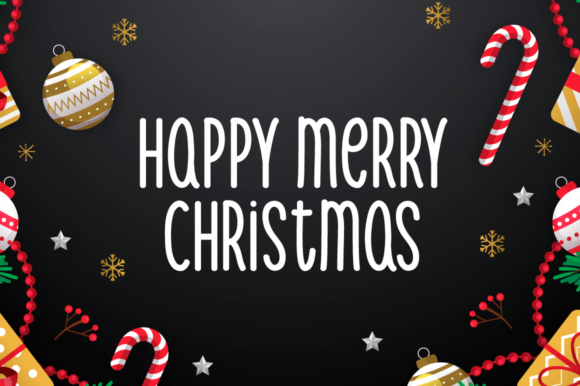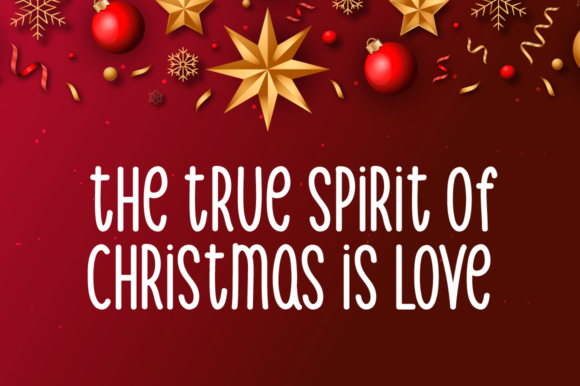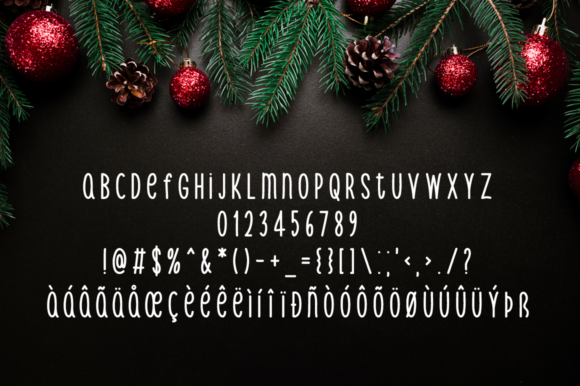
Deck the Halls with the Festive Christmas Tree Font
Are you looking for a font that captures the essence of the holiday season? Look no further than the Christmas Tree Font! This simple and neat handwritten font is perfect for adding a touch of festive cheer to your designs. In this article, we’ll explore the features and benefits of the Christmas Tree Font, and how you can use it to make your Christmas holiday one to remember.
What is the Christmas Tree Font?
The Christmas Tree Font is a beautiful handwritten font that is inspired by the magic of the holiday season. Its simple and neat design makes it perfect for a wide range of applications, from stationery and logos to t-shirts and print designs. The font is easy to read and has a friendly, approachable feel that is sure to put a smile on your face.
Features of the Christmas Tree Font
- Simple and Neat Design: The Christmas Tree Font has a clean and simple design that makes it easy to read and use in a variety of contexts.
- Handwritten Style: The font has a friendly, handwritten style that adds a personal touch to your designs.
- Versatile: The Christmas Tree Font is perfect for a wide range of applications, including stationery, logos, t-shirts, print designs, website headers, flyers, and more.
Benefits of Using the Christmas Tree Font
There are many benefits to using the Christmas Tree Font in your designs. Here are just a few:
- Adds a Touch of Festive Cheer: The Christmas Tree Font is the perfect way to add a touch of festive cheer to your designs.
- Stand Out from the Crowd: The unique and eye-catching design of the Christmas Tree Font makes it perfect for designers and crafters who want to stand out from the crowd.
- Easy to Read: The font is easy to read, making it perfect for use in a variety of contexts, from body text to headings.
- Customizable: The Christmas Tree Font is highly customizable, making it easy to use in a variety of contexts and designs.
Using the Christmas Tree Font in Your Designs
The Christmas Tree Font is perfect for a wide range of applications, including:
- Stationery: Use the Christmas Tree Font to create festive and fun stationery, including cards, invitations, and gift tags.
- Logos: The Christmas Tree Font is perfect for use in logos, adding a touch of festive cheer to your brand identity.
- T-Shirts and Apparel: Use the Christmas Tree Font to create fun and festive t-shirts and apparel, perfect for the holiday season.
- Print Designs: The Christmas Tree Font is perfect for use in print designs, including brochures, flyers, and posters.
- Website Headers: Add a touch of festive cheer to your website headers with the Christmas Tree Font.
Tips and Tricks for Using the Christmas Tree Font
Here are a few tips and tricks for using the Christmas Tree Font in your designs:
- Experiment with Colors: The Christmas Tree Font looks great in a variety of colors, so don’t be afraid to experiment and find the perfect color for your design.
- Use it with Other Fonts: The Christmas Tree Font pairs well with other fonts, so try using it with a bold font for headings or a script font for added elegance.
- Add Decorations: Add some festive decorations to your design, such as holly or snowflakes, to really make it pop.
The Christmas Tree Font is a beautiful and versatile font that is perfect for adding a touch of festive cheer to your designs. With its simple and neat design, friendly handwritten style, and wide range of applications, it’s the perfect font for designers and crafters of all levels. So why not give it a try and make your Christmas holiday one to remember?